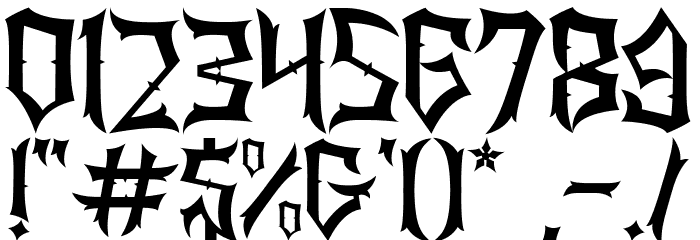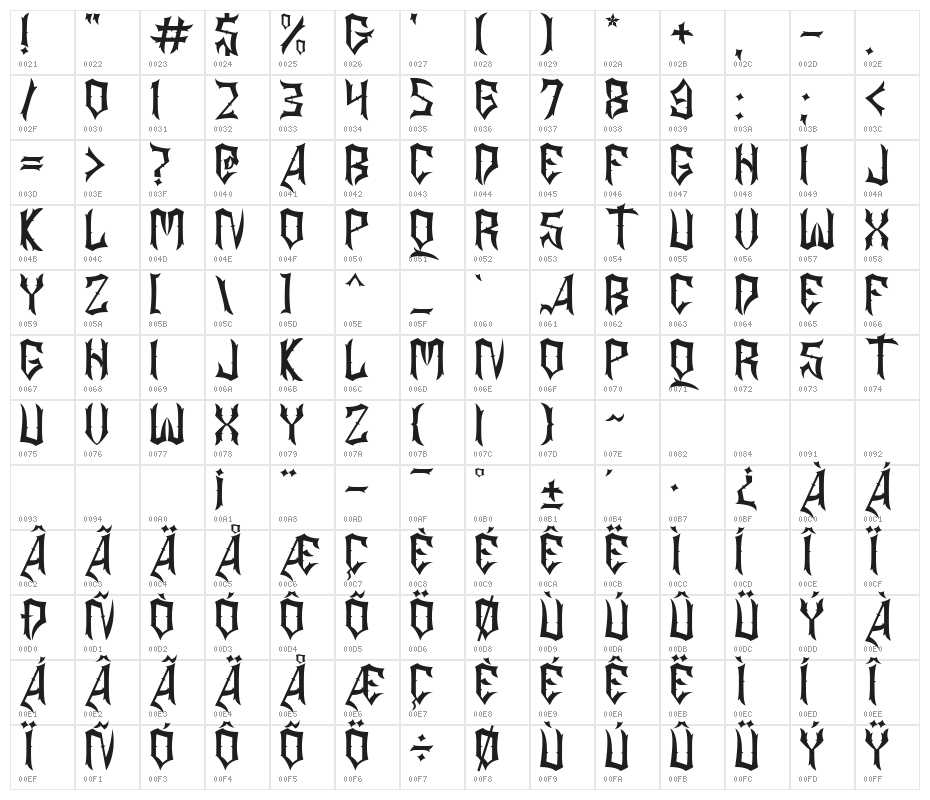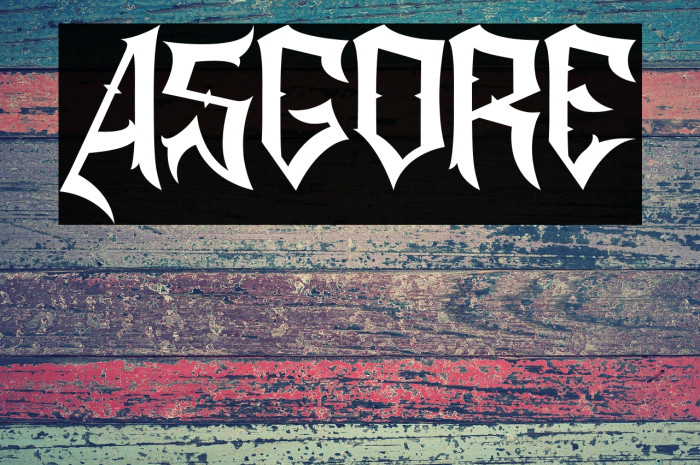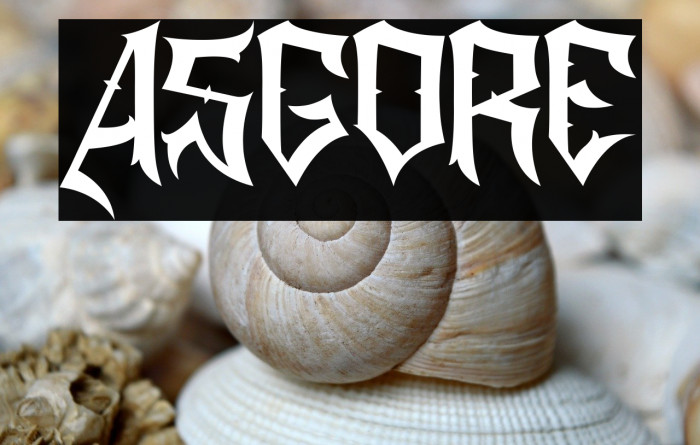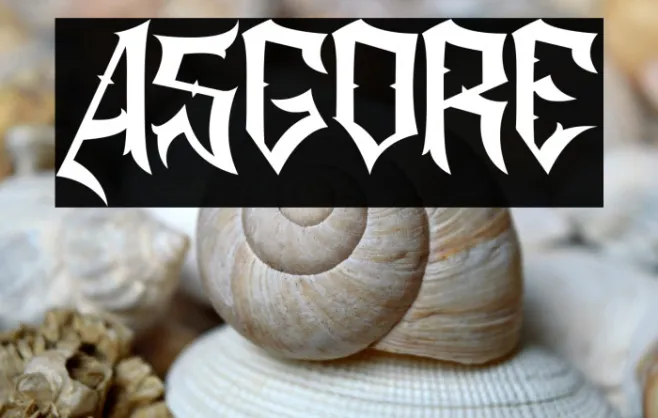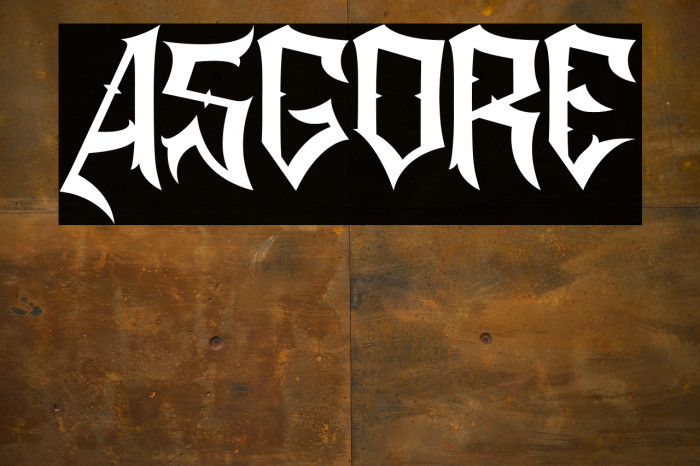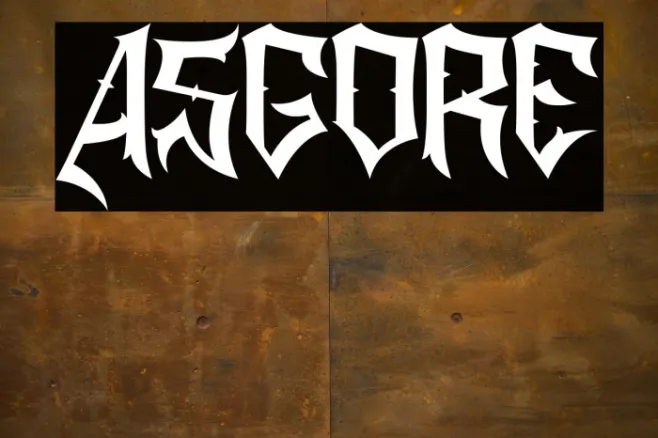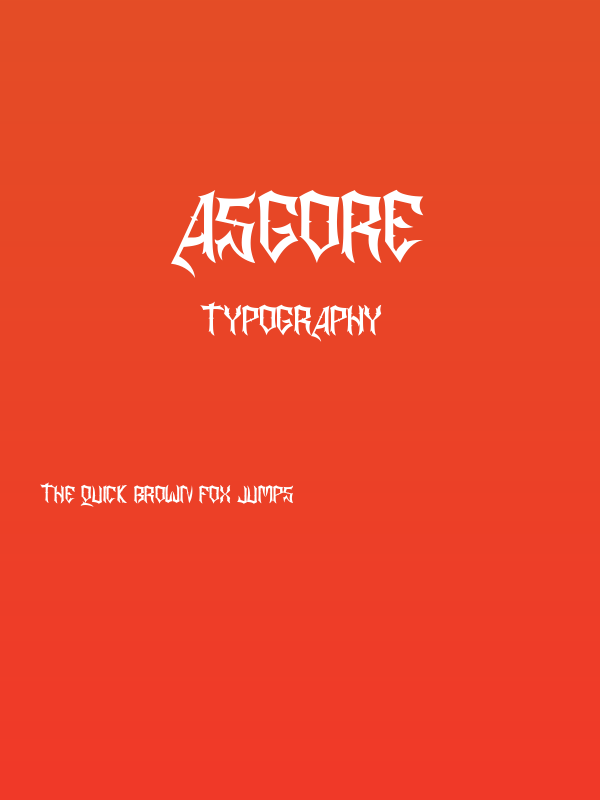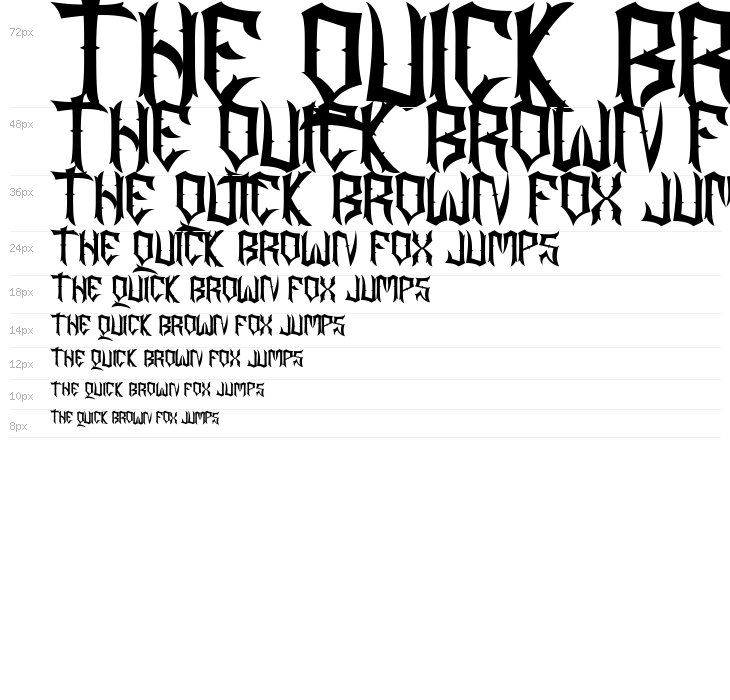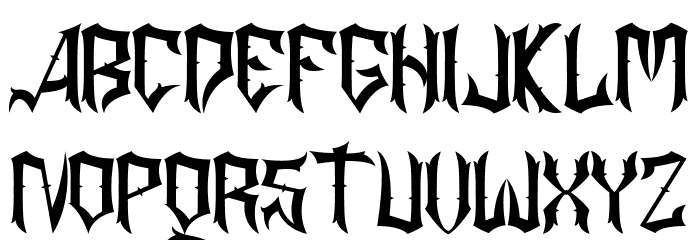
ASGORE Font
ASGORE Description
This font features a bold and aggressive design, characterized by sharp, angular lines and a gothic aesthetic. The uppercase letters are particularly striking, with exaggerated serifs and pointed edges that give a sense of intensity and drama. The lowercase letters maintain the same sharpness, ensuring consistency throughout the typeface. Numbers and special characters are equally bold, with unique shapes that complement the overall style. This font's distinct appearance makes it ideal for projects that require a strong visual impact.
| Overall Style | Gothic, Dramatic |
| Proposed Projects | Ideal for album covers, video game titles, posters, and branding that requires a strong, edgy look. |